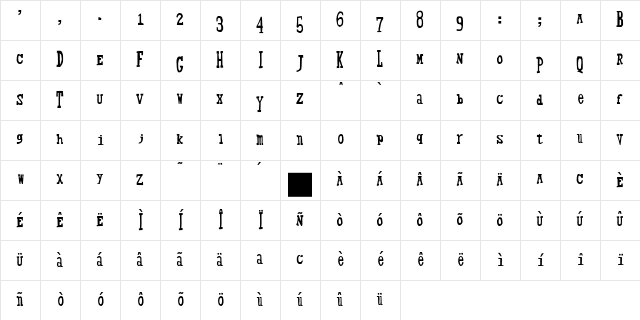
LaDaphnNormal Medium
Design Context for LaDaphnNormal Typeface
LaDaphnNormal takes a measured approach to typography — its balanced proportions and neutral character make it a reliable workhorse for both digital and print work.